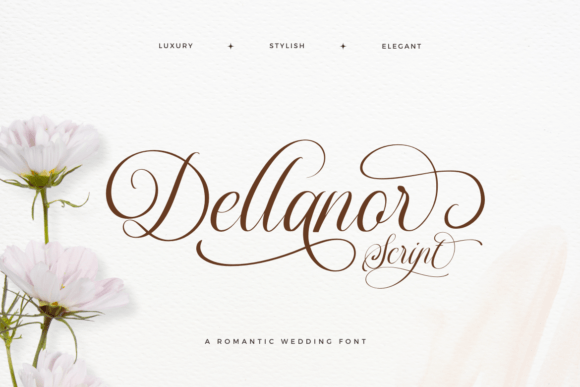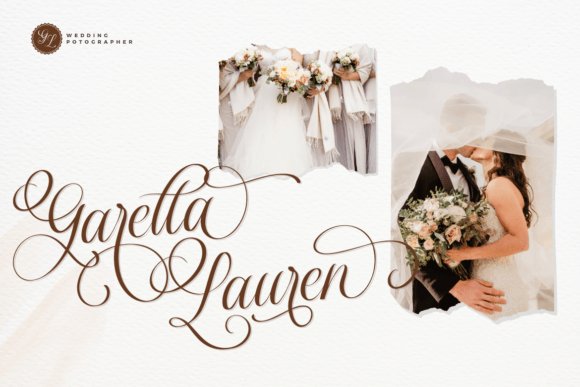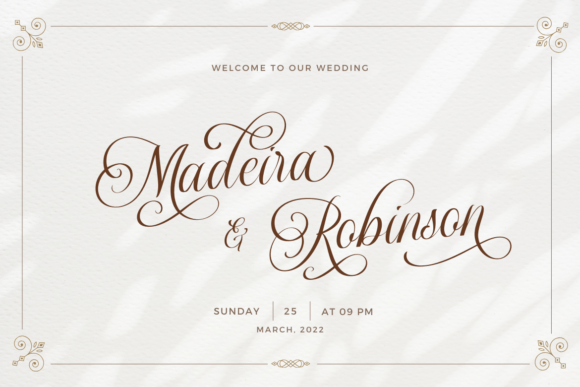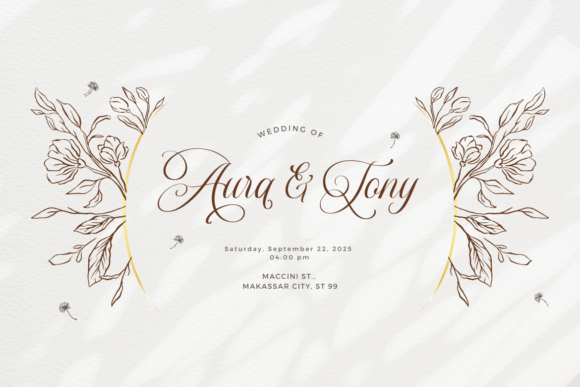
Dellanor Script Font
About the Dellanor Script Font
From logos to headlines, the Dellanor Script Font is the perfect choice for making a lasting impression. “Dellanor Script” is a romantic wedding font with luxury, stylish, and elegant characteristics. Its ornate and decorative style makes it a great choice for wedding invitation design, event signs, and other design projects that require a touch of sophistication and romance.
Many alternative options can provide a variety of looks for each letter, allowing you to customize and personalize the text to achieve the desired look.
Dellanor Script’s ornate style is best suited for headlines, short text blocks on invitations or signage, and logos requiring a touch of vintage elegance. It excels in projects emphasizing luxury or romance, such as high-end branding for boutiques or wedding stationery. However, its decorative nature makes it unsuitable for body text or UI elements where readability is paramount. Extended use would hinder legibility.
Pairing Dellanor Script with a clean sans-serif like Montserrat for body copy creates a sophisticated contrast, balancing the script’s ornate detail with modern simplicity. Alternatively, a classic serif font such as Garamond adds a traditional, refined touch. For a more playful feel, a geometric sans-serif like Futura could be used for supporting text.
The font projects a personality of refined elegance and romantic charm, making it ideal for brands aiming for a sophisticated and timeless image. Avoid pairing it with overly bold or playful fonts, as this would clash with its inherent delicate nature.